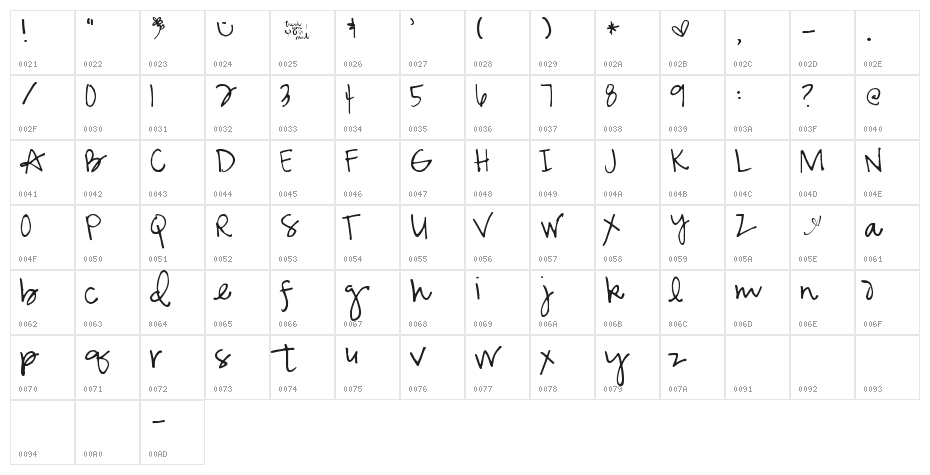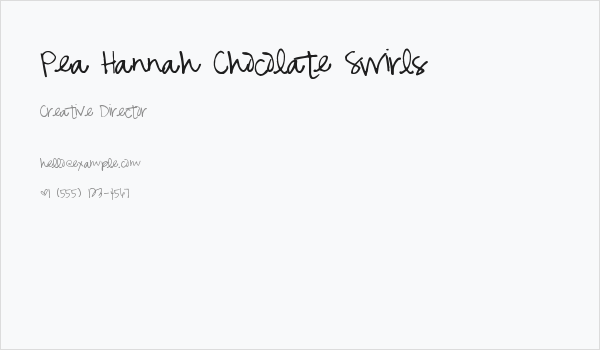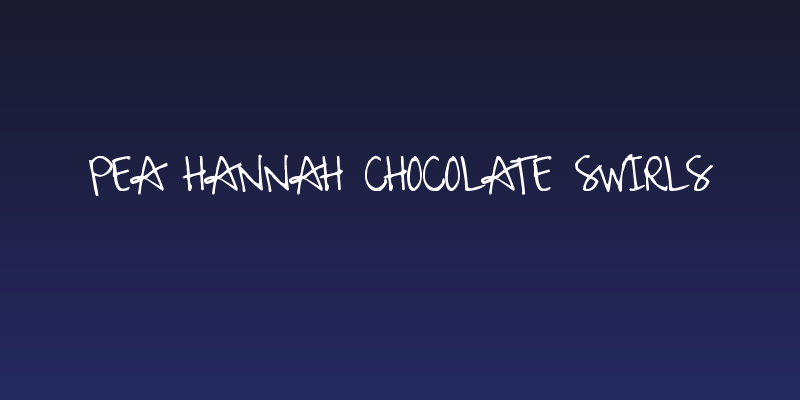
Pea Hannah Chocolate Swirls Font
Pea Hannah Chocolate Swirls Description
This font exudes a playful and whimsical charm, characterized by its handwritten style that mimics the fluidity and spontaneity of natural handwriting. The letters are crafted with a casual flair, featuring irregular strokes and varying line thicknesses that add to its informal and friendly appearance. The uppercase and lowercase letters maintain a consistent style, with a slight slant that enhances the font's dynamic feel. Numbers and special characters are included, each designed with the same lively and expressive quality. This font is perfect for projects that require a personal touch, conveying warmth and approachability.
| Use Case | Headlines, Personal notes, Creative projects |
| Proposed Projects | Ideal for greeting cards, personal notes, invitations, and creative projects that require a personal touch. |